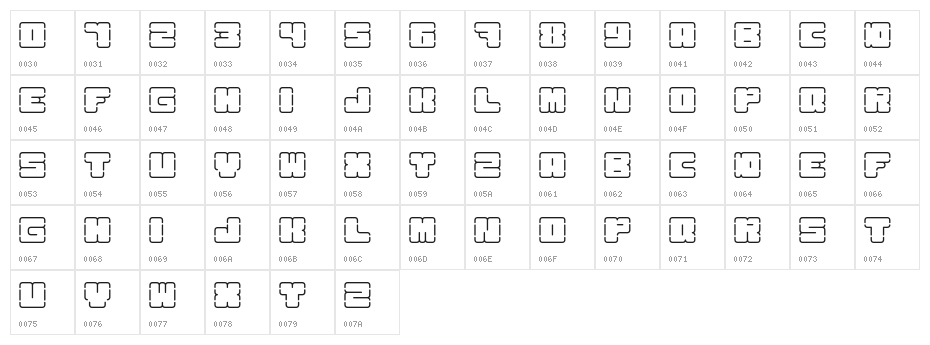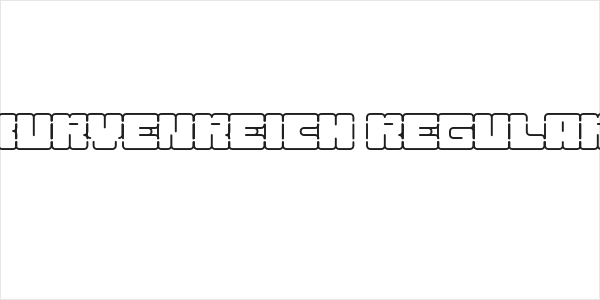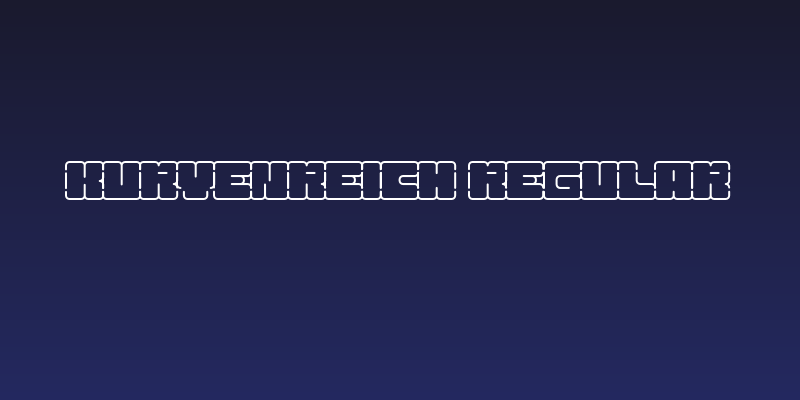
Kurvenreich-Regular Font
Kurvenreich-Regular Description
This font features a bold, geometric style with rounded edges and a distinct block-like appearance. Each character is enclosed within a uniform outline, giving it a cohesive and structured look. The uppercase and lowercase letters maintain a consistent height, contributing to its uniformity. The numbers and special characters follow the same design principles, ensuring a harmonious overall appearance. The font's playful yet structured design makes it suitable for various creative applications.
| Proposed Projects | Ideal for posters, logos, and branding materials that require a modern and playful touch. |